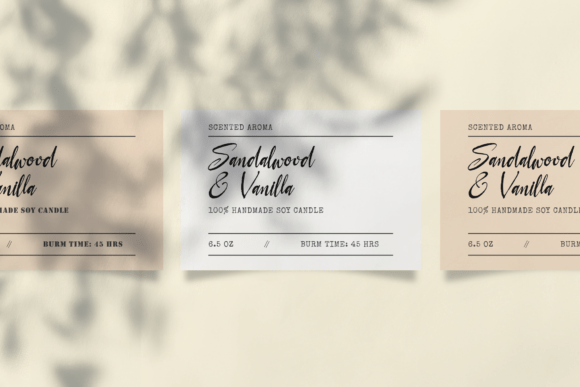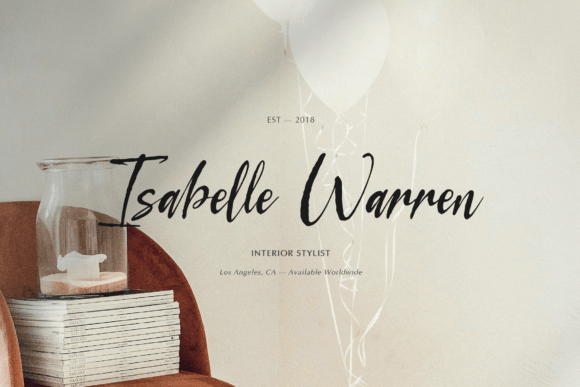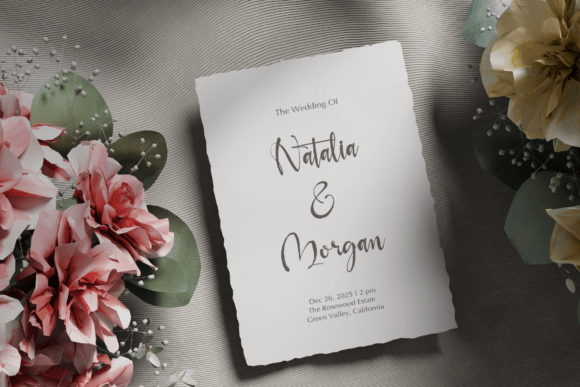
Introduction to Myrical Amellina Font
Have you ever found yourself doodling in a notebook, trying to capture the perfect handwritten font? The feeling of bringing your creative vision to life with a unique touch is exhilarating. For designers, the search for the perfect design resource can be a constant quest. That’s where Myrical Amellina Font comes in – a beautiful, casual handwritten font that’s perfect for adding a personal touch to any project.
Whether you’re working on a branding project, designing homeware, or creating a product packaging, Myrical Amellina Font is an invaluable addition to your design arsenal. Its transparent background and high-quality design make it easy to use and customize. Plus, with the option for a free download, you can start using it in your creative project right away.
As a design resource, Myrical Amellina Font offers endless possibilities for creative expression. From logos to quotes, posters to shopping bags, this font is the perfect companion for any project that needs a casual, handwritten touch.
Key Features of Myrical Amellina Font
- Unique, hand-drawn design perfect for creative projects that require a touch of elegance and sophistication.
- High-quality font with transparent background, ideal for use as a design resource in graphic design, digital art, and other creative applications.
- Designed with a delicate, whimsical feel, making it perfect for use in wedding invitations, greeting cards, and other special occasion designs.
- Includes a comprehensive character set, including uppercase and lowercase letters, numbers, and punctuation marks, making it a versatile design resource.
Honest Review: Myrical Amellina Font
As a designer, I’m always on the lookout for high-quality design resources that can elevate my creative projects. The Myrical Amellina Font is one such resource that caught my attention. In this review, I’ll share my honest thoughts on what works well and what could be improved.
- Unique Design: The Myrical Amellina Font has a distinctive, elegant design that sets it apart from other fonts.
- High Quality: The font’s high quality is evident in its crisp, clear lines and smooth curves.
- Limited Customization: The font’s design is quite fixed, which can limit its flexibility in certain creative projects.
Overall, the Myrical Amellina Font is a solid addition to any designer’s toolkit. While it has some limitations, its unique design and high quality make it a great resource for creative projects. If you’re looking for a free font that can add some elegance to your designs, the Myrical Amellina Font is definitely worth checking out.